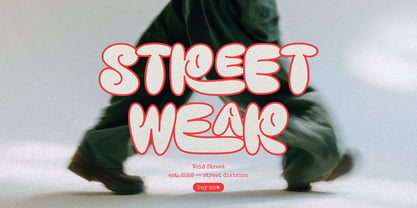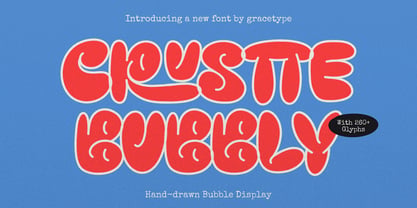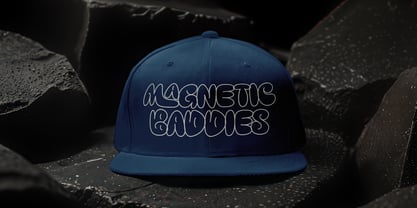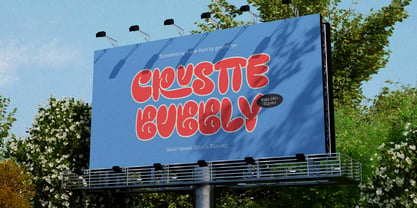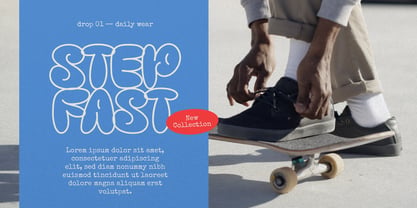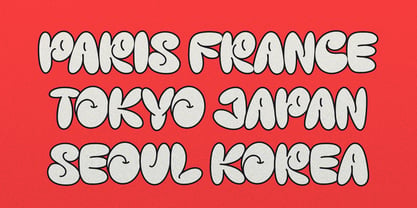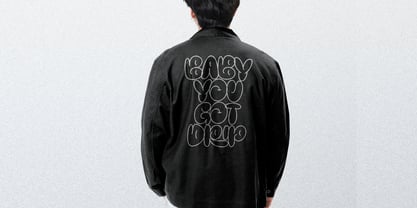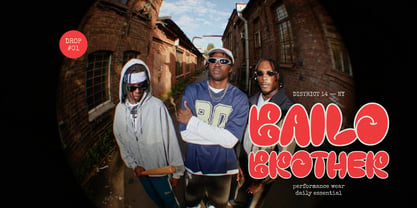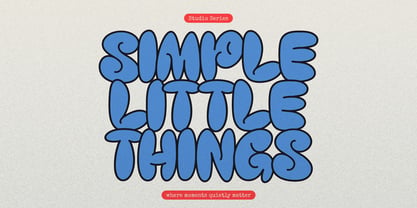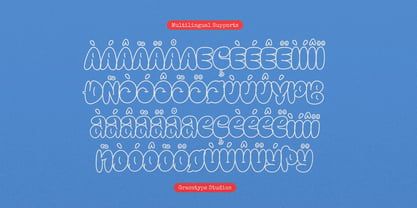
Crustte Bubbly
Crustte Bubbly | Hand Drawn Bubble Display, from Gracetypestudio, suitable for any projects such as: logos, branding projects, homeware designs, product packaging, mugs, quotes, posters, shopping bags, t-shirts, book covers, name card, invitation cards, greeting cards, label, photography, watermark, special events, and all your other lovely projects that need a Hand Drawn taste.